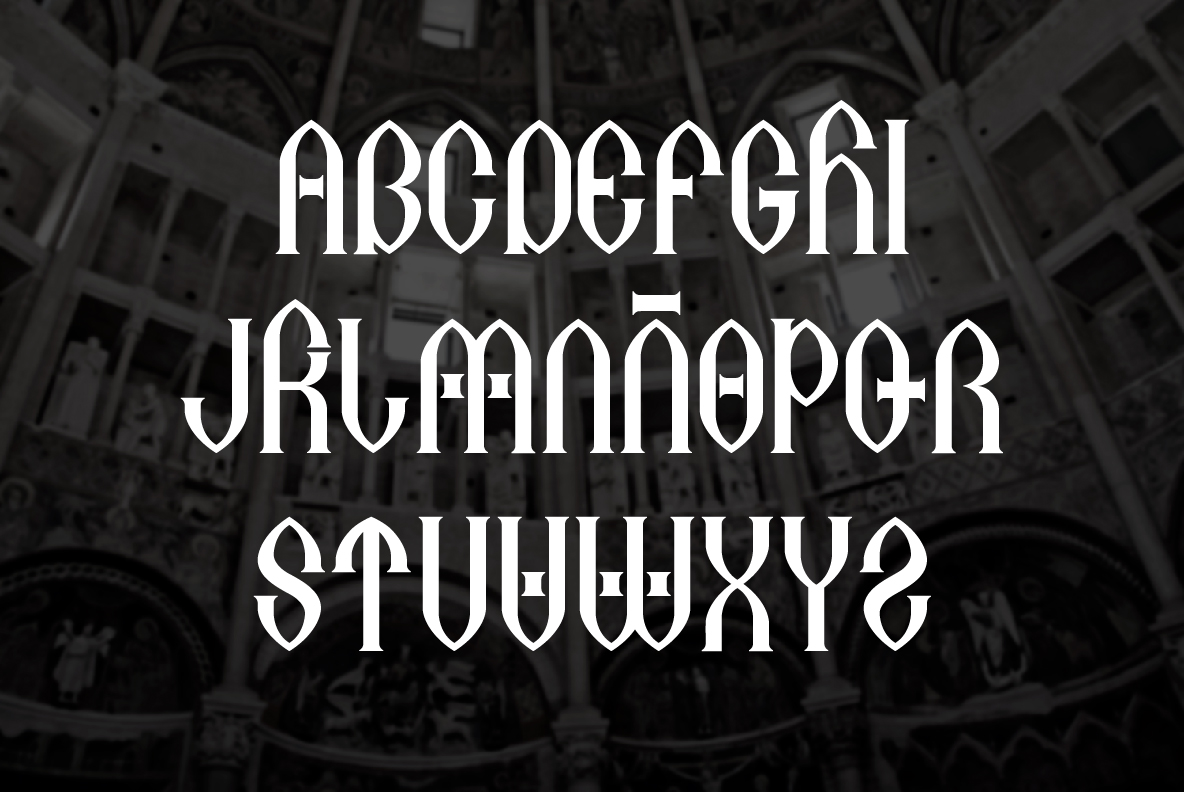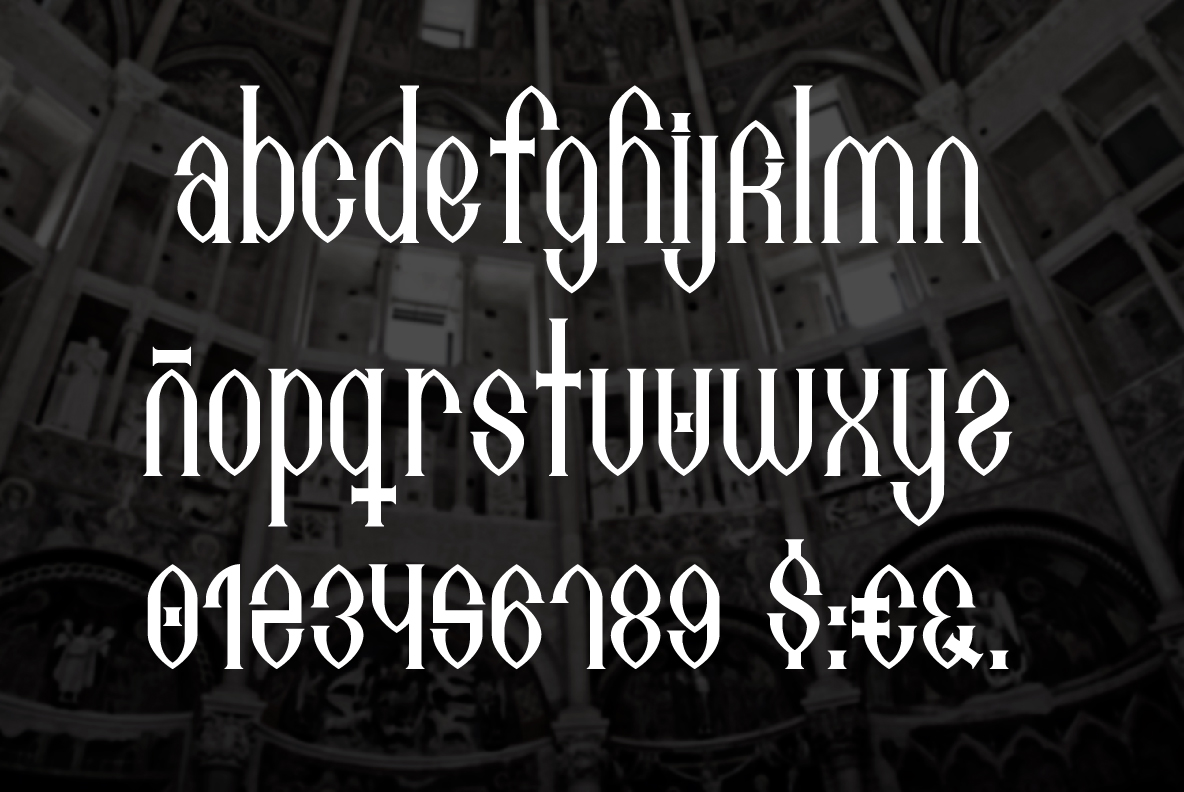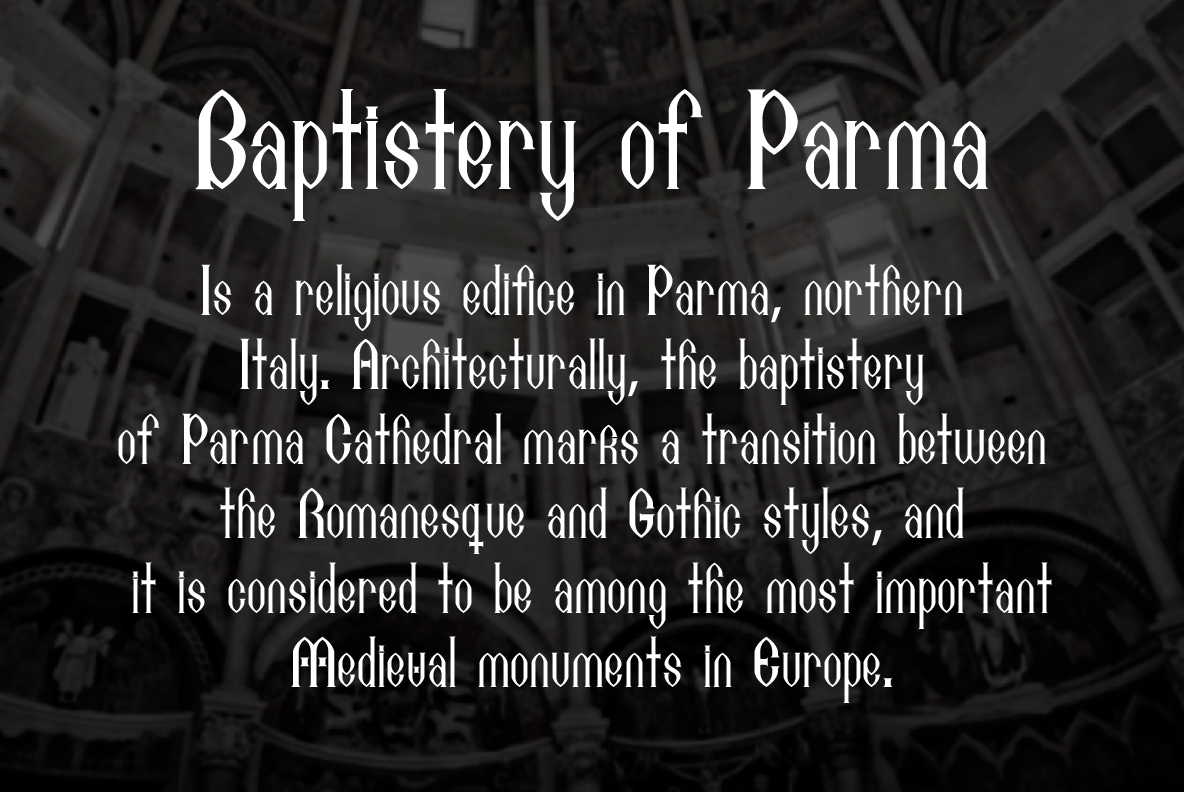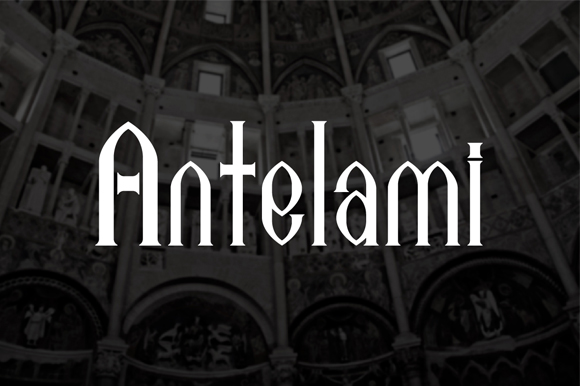
Discover the Unique Charm of Antelami Font: A Blend of Romanesque and Gothic Styles
In the realm of typography, few fonts manage to evoke a distinct mood or style that sets them apart from the rest. Antelami font is one such unique typeface that effortlessly blends the elegance of Romanesque and Gothic periods, creating a visually striking and emotive font. With its characteristic endings and serifs, Antelami exudes a Roman-Gothic and religious air, making it a fascinating choice for designers and crafters looking to add depth and character to their projects.
The Origins and Characteristics of Antelami Font
Named after the Antelami family, who were renowned for their contributions to medieval art and architecture, Antelami font draws inspiration from the rich artistic heritage of the Romanesque and Gothic periods. This font is distinguished by its robust and intricate design, featuring elaborate serifs and distinctive endings that give it a majestic and somewhat mystical appearance. The blend of rounded and pointed elements creates a balanced contrast that is both aesthetically pleasing and deeply evocative.
Design Elements and Typography
Antelami font showcases a range of design elements that make it stand out. Its serifs, the small lines or flourishes at the ends of the letters, are intricately designed, contributing to the font’s Gothic feel. Meanwhile, the letterforms themselves have a sturdy, Romanesque quality, providing the font with a solid foundation. The line height and letter spacing are carefully considered to ensure readability, even in larger bodies of text. This attention to detail makes Antelami not only a decorative font but also a functional one.
Uses in Design and Crafting
The unique characteristics of Antelami font make it suitable for a variety of design and crafting projects. Here are a few ways designers and crafters can utilize this versatile font:
• Art and Illustration: The distinctive style of Antelami font lends itself well to artistic projects, especially those with a medieval or mystical theme.
• Branding and Logos: For businesses looking to convey a sense of tradition, reliability, and uniqueness, Antelami can be a compelling choice.
• Packaging: The font’s decorative nature makes it perfect for product packaging, especially for items related to spirituality, history, or luxury goods.
• Stationery and Invitations: For special occasions like weddings, anniversaries, or historical-themed events, Antelami font can add an elegant and memorable touch.
Tips for Working with Antelami Font
To make the most of Antelami font, consider the following tips:
• Pairing: Combine Antelami with simpler fonts to create contrast and highlight the unique features of the Antelami font.
• Sizing: Experiment with different sizes to leverage the font’s versatility, from large headings to smaller body text.
• Color: Choose colors that complement the historical and mystical feel of the font, such as rich tones of gold, red, and blue.
Antelami font is a remarkable typeface that captures the essence of both Romanesque and Gothic styles, offering designers and crafters a unique tool for their creative projects. Its distinctive mood and stylistic elements can add depth, character, and a touch of the extraordinary to any design. Whether you’re working on a branding project, crafting artistic pieces, or designing elegant stationery, Antelami font is sure to leave a lasting impression.